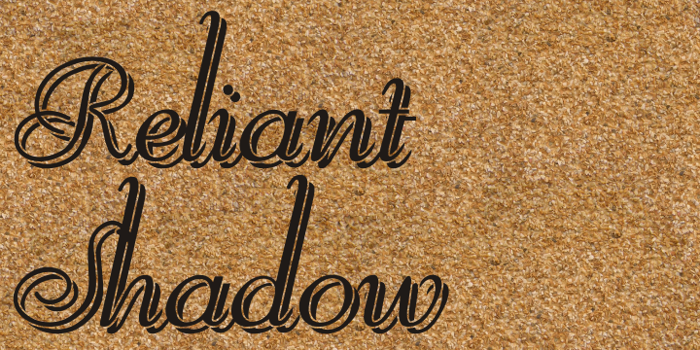
Reliant Shadow Free Font
Reliant Shadow Free version, by Intellecta Design
ABOUT THE ORIGINAL FONT
Reliant is a free interpretation of the classic design from fonts “BernhardSchoenschrift”, originally designed by Lucien Bernhard and “Liberty”, designed by W.T. Sniffin for ATF in 1927, following the original designs from Lucien Bernhard.
This enhanced OpenType version has complete sets in Greek and Latin alphabet with Central European, Vietnamese, Baltic and Turkish complete resources with all diacritic signs and punctuation marks plus extra characters belonging this ranges.
We added a extensive set of ligatures (stylistic and contextual alternates plus discretionary ligatures) providing a lot of letterform variations that make your design really special, plus swashes and tails ornaments (to artistic increase any letter of this font) more fractions and number ligatures (a strange idea from Iza W). Over 800 glyphs which you have total access using software such as InDesign, Illustrator, QuarkXpress and others.